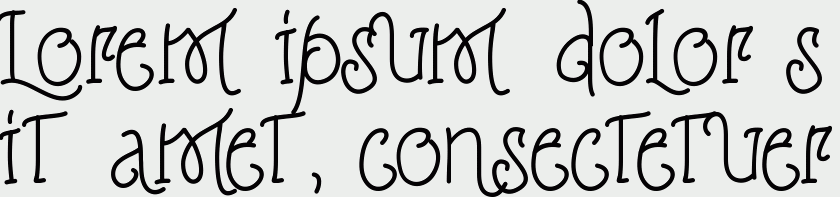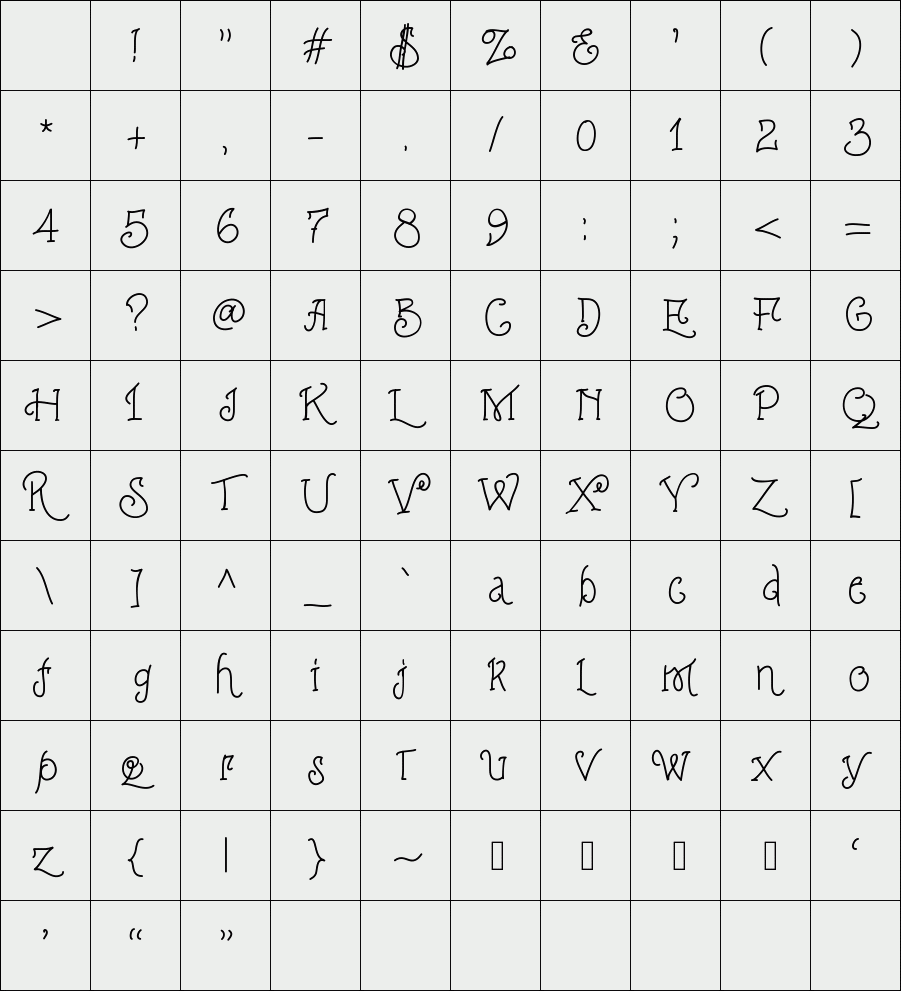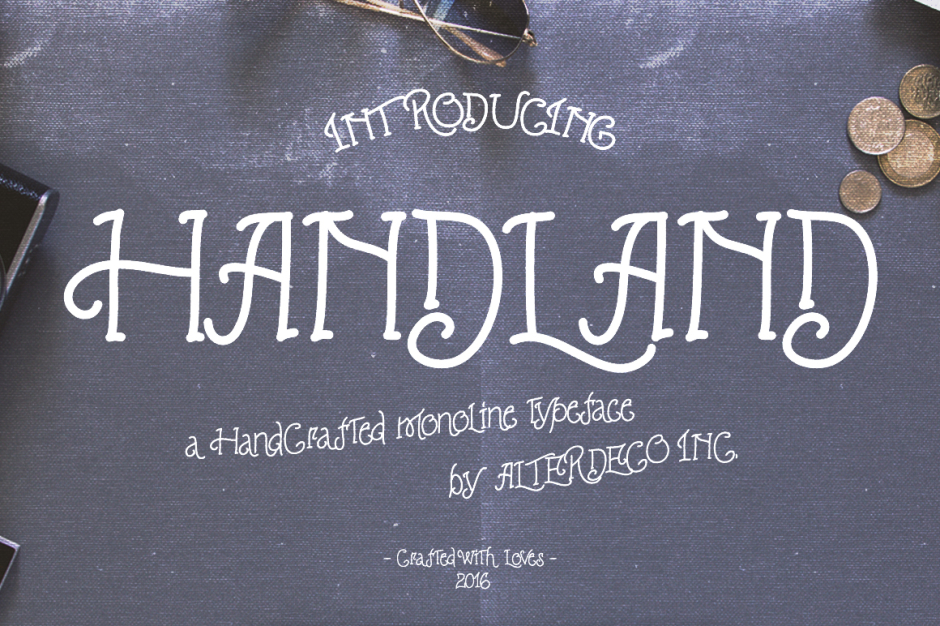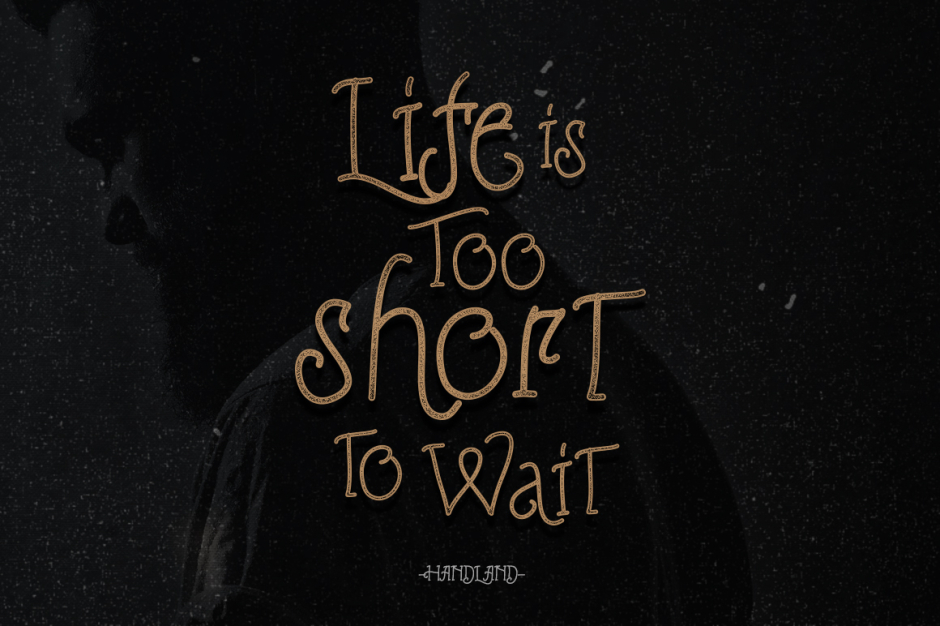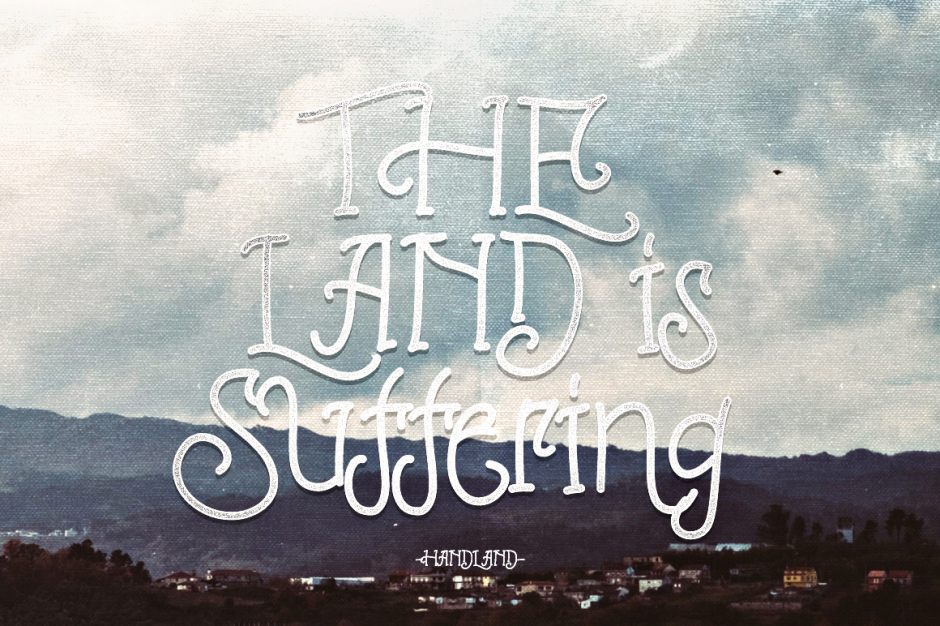
Handland Typeface
Handland is a handcrafted monoline typeface. you can use it to create some handlettering projects, typography projects, invitations, greeting cards, etc. its handlettered-style unique font that bring handmade styles to your design projects.